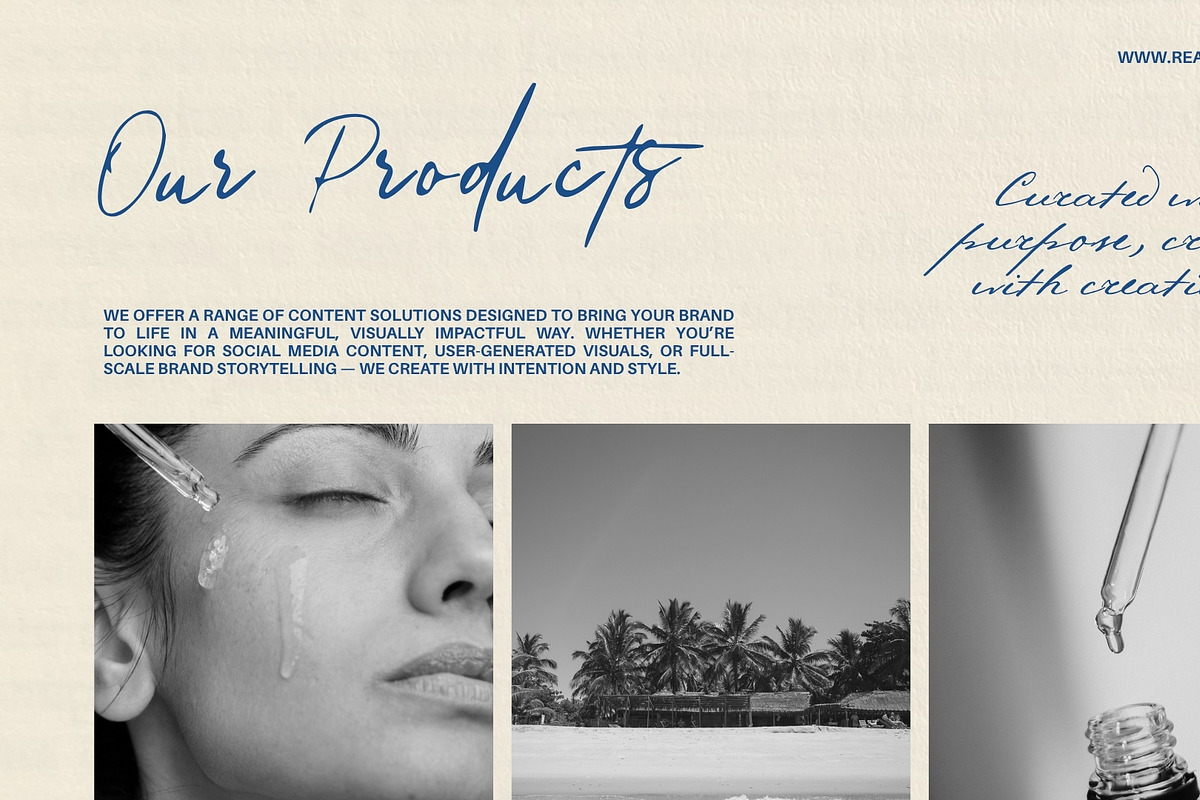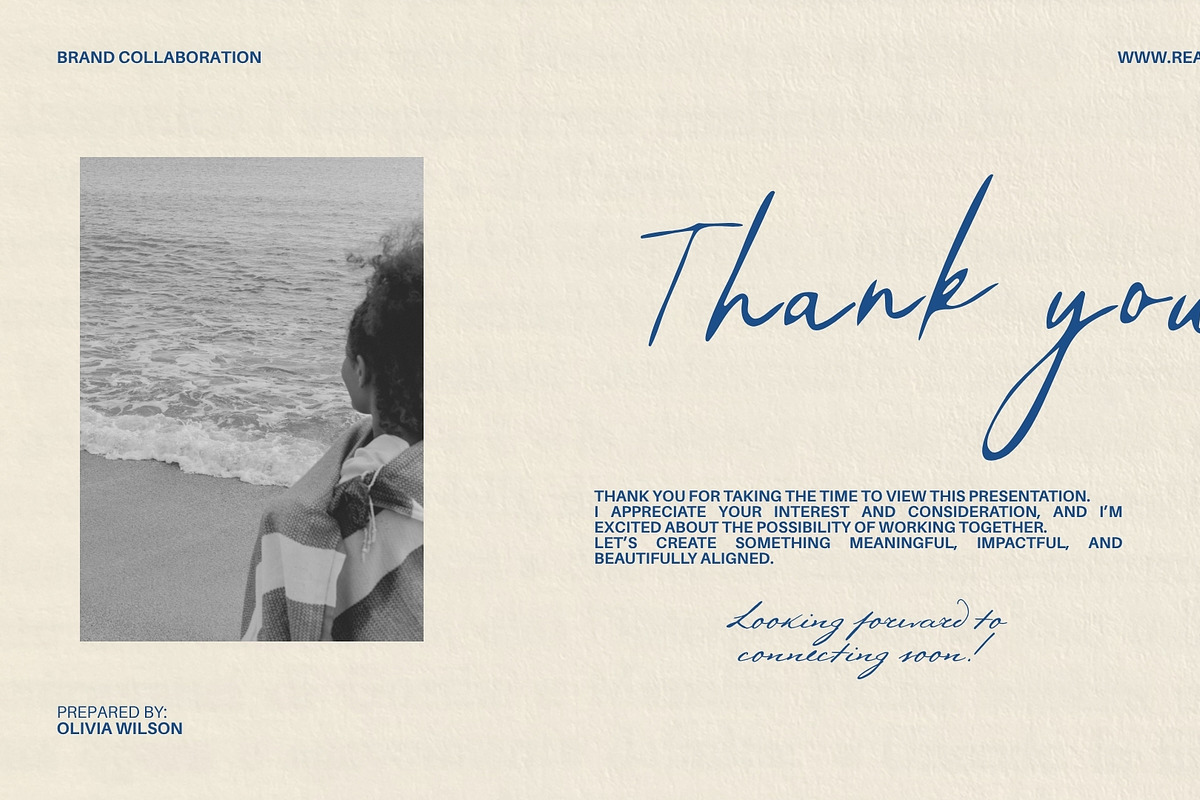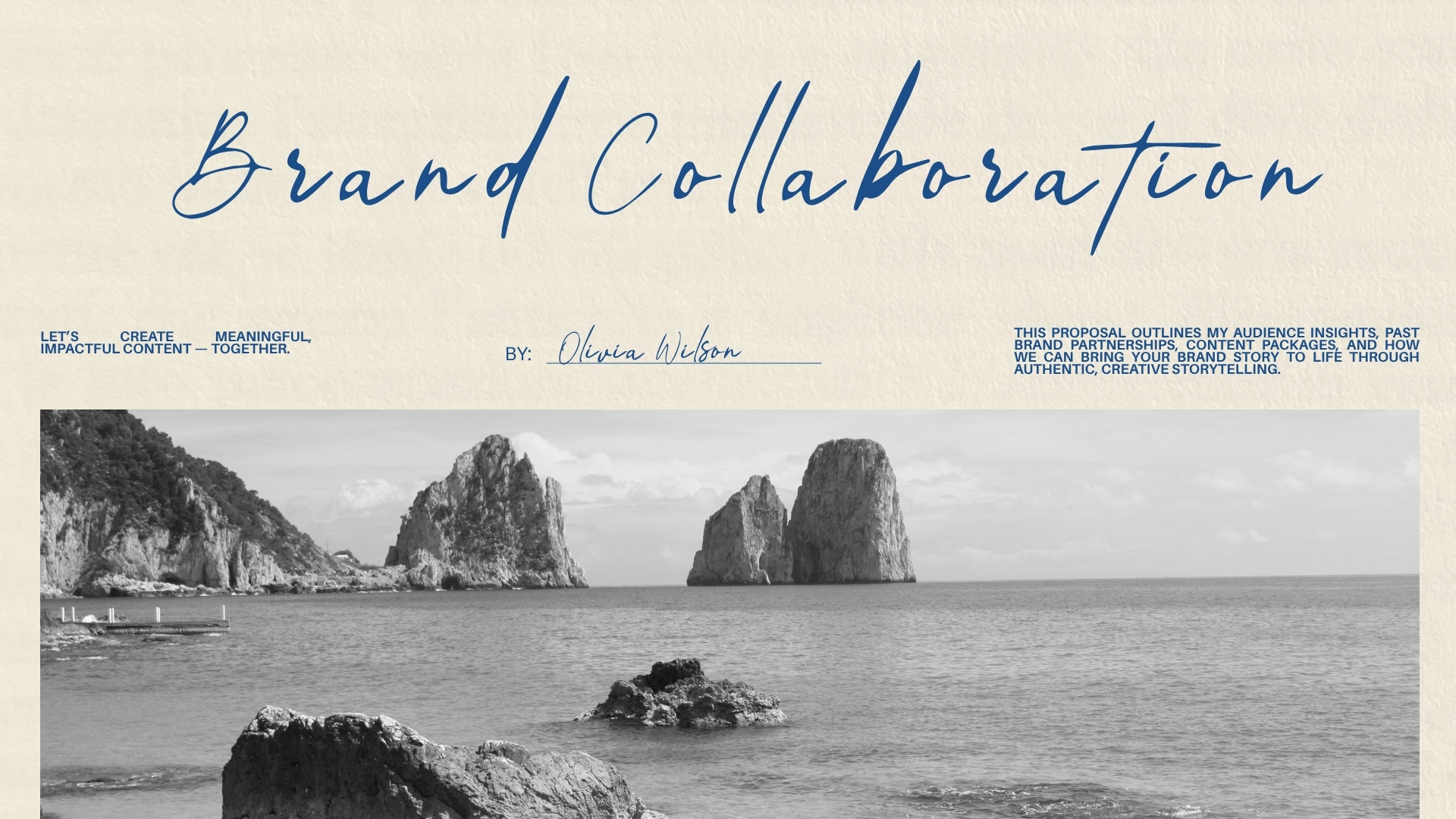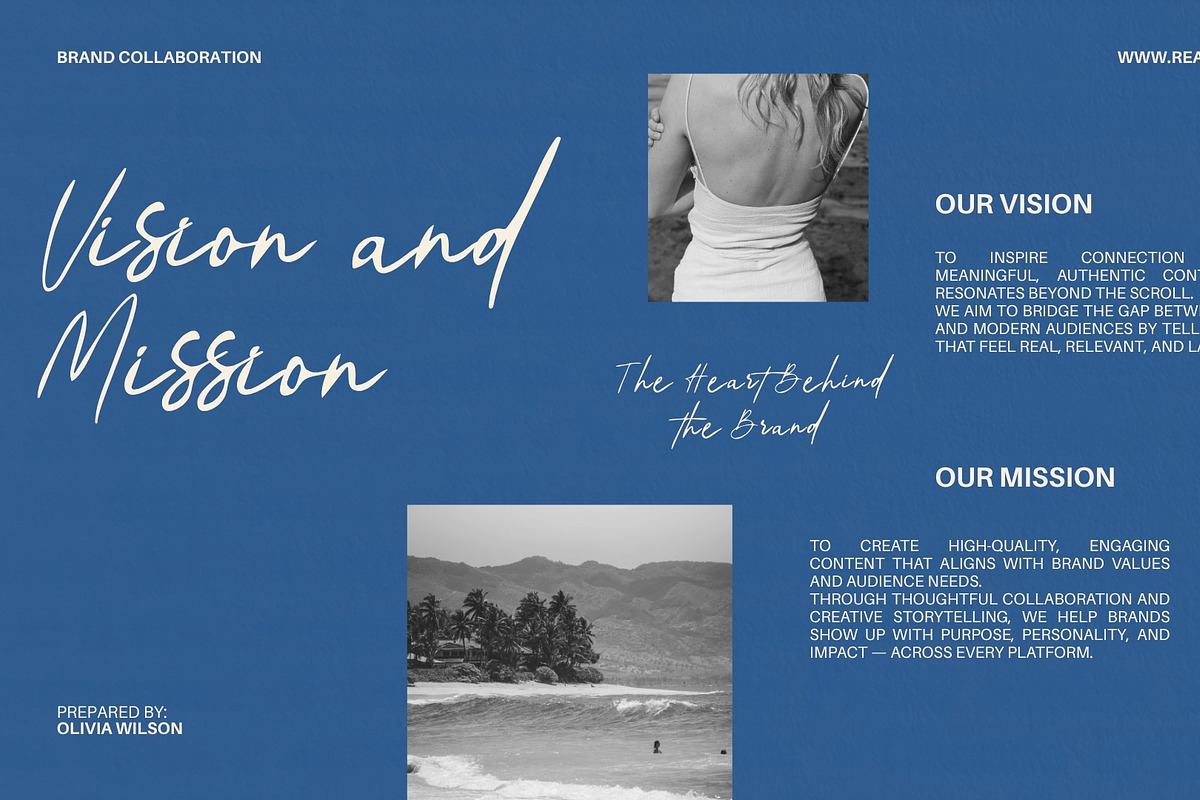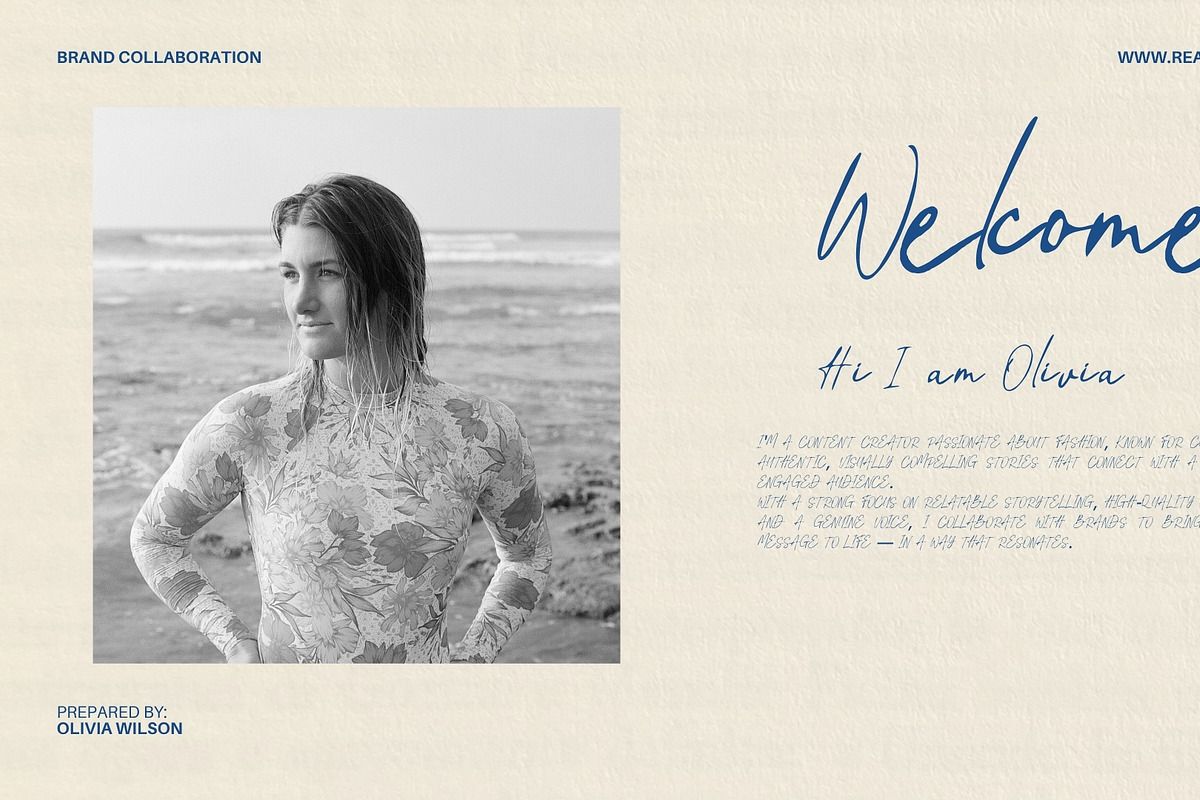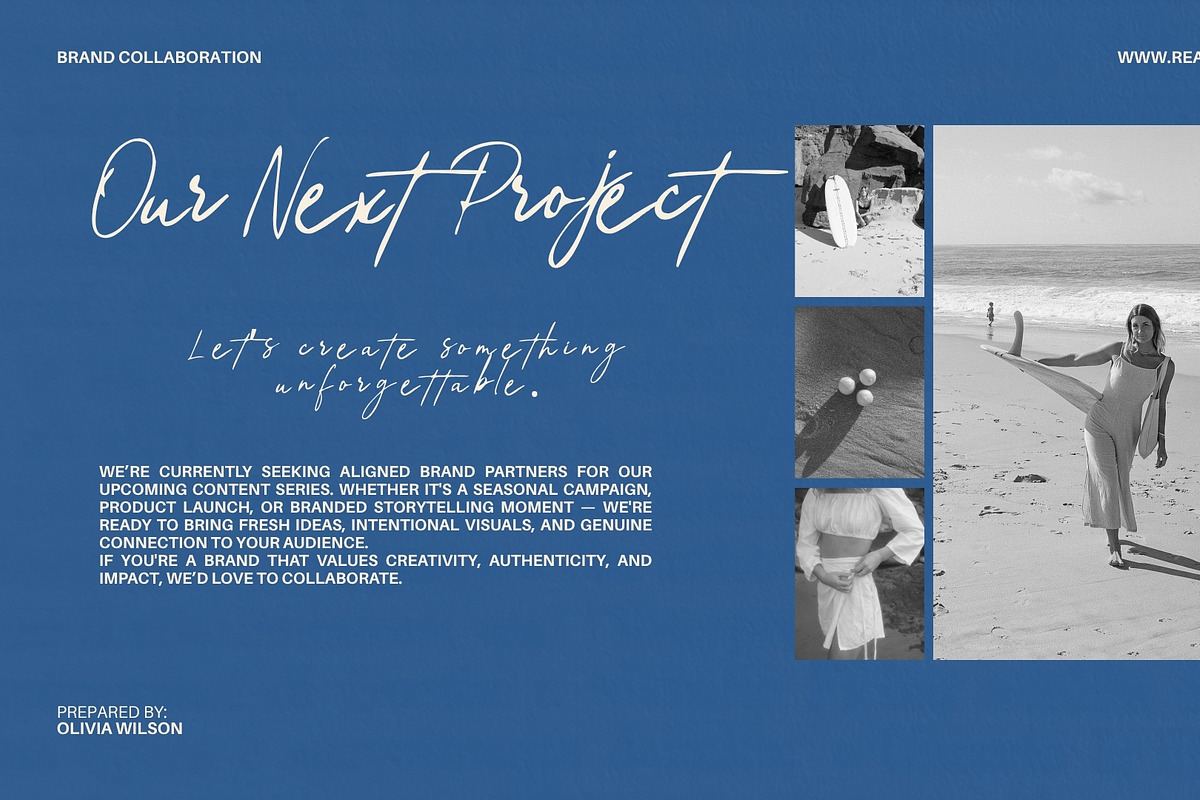
Handwritten Script Font
Create beautiful and elegant designs with this Handwritten Script Font. Featuring smooth flowing strokes and a natural handwritten style, this typeface is perfect for logos, branding, wedding invitations, social media graphics, product packaging, greeting cards, Cricut projects, and more.
Designed with a clean, modern calligraphy look, this font adds a personal and stylish touch to both digital and print projects.
Branding
Wedding Invitations
Cricut & Silhouette Projects
Social Media
Signatures
Posters
Cards
DIY Crafts
Printable Designs